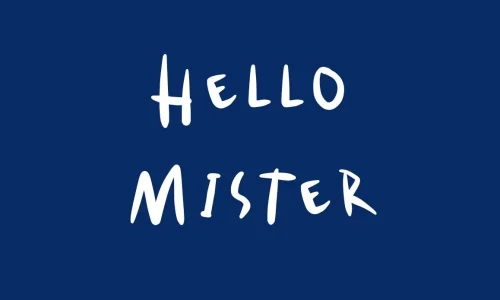
Here we’re offering Welcome December Font, a script font that was designed by a famous designer Andi Moz. It has an excellent texture and soft and graceful corners that give an elegant and delicate handwritten touch.
Welcome December Font Family
You can utilize this font for all creative displays that want to be charming and lovely, you can pair this font with kidzonia font for excellent and elegant results.